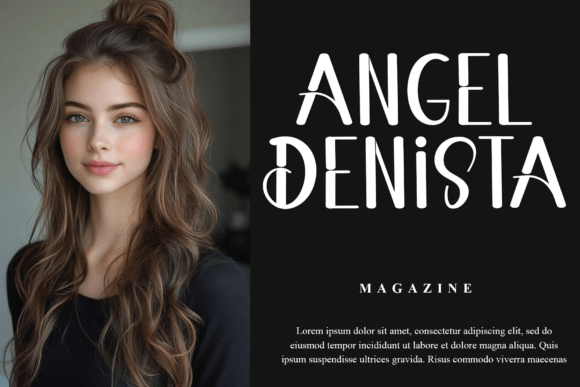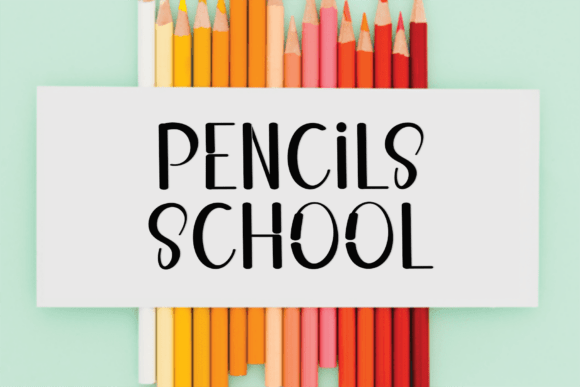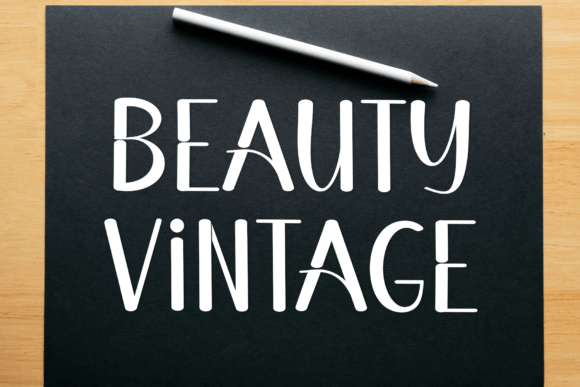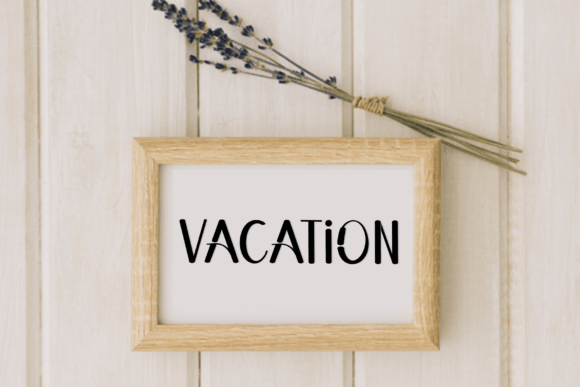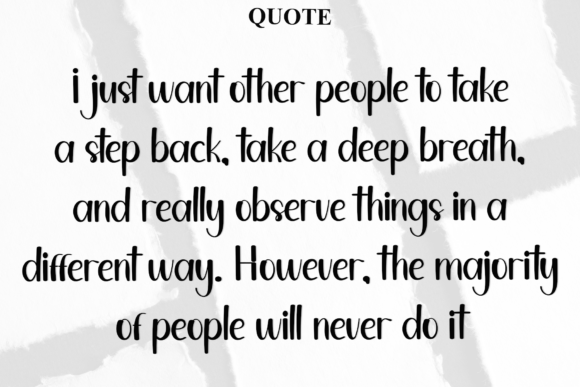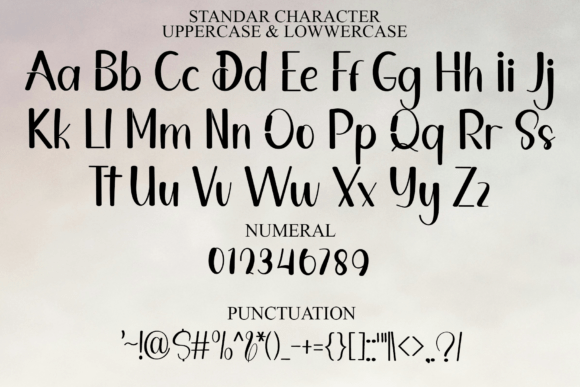
Introducing Brother Basketball Font: The Perfect Blend of Casual and Creative
Are you tired of using the same old fonts for your personal projects, invitations, and social media graphics? Look no further than Brother Basketball Font, a casual and creative font that exudes warmth and friendliness. Its round, playful strokes create a relaxed and approachable feel, perfect for designers and crafters looking to add a unique touch to their designs.
The Charm of Brother Basketball Font
Brother Basketball Font boasts a charming, hand-drawn aesthetic that sets it apart from other fonts. Its playful and casual nature makes it perfect for a wide range of design applications, from personal projects to commercial use. The font’s relaxed and approachable feel makes it ideal for designs that require a friendly and inviting tone.
Key Features of Brother Basketball Font
- Hand-Drawn Aesthetic: The font’s hand-drawn aesthetic adds a fun and unique touch to any design, making it perfect for designers and crafters looking to add a personal touch to their work.
- Casual and Creative: Brother Basketball Font is a casual and creative font that exudes warmth and friendliness, making it perfect for personal projects, invitations, and social media graphics.
Use Cases for Brother Basketball Font
Brother Basketball Font is perfect for a wide range of design applications, including:
- Personal Projects: Use Brother Basketball Font to add a personal touch to your personal projects, such as photo albums, scrapbooking, and crafting.
- Invitations: Create beautiful and unique invitations for special occasions, such as birthdays, weddings, and baby showers.
- Social Media Graphics: Use Brother Basketball Font to create engaging and eye-catching social media graphics, such as Facebook posts, Instagram stories, and Twitter headers.
- Commercial Use: Brother Basketball Font is also perfect for commercial use, such as branding, packaging, and advertising.
Tips for Using Brother Basketball Font
Here are some tips for using Brother Basketball Font effectively:
- Pair with Other Fonts: Pair Brother Basketball Font with other fonts to create a unique and interesting contrast.
- Use for Headings and Titles: Use Brother Basketball Font for headings and titles to add a touch of personality to your design.
Brother Basketball Font is a casual and creative font that exudes warmth and friendliness. Its round, playful strokes create a relaxed and approachable feel, perfect for personal projects, invitations, and social media graphics. With its charming, hand-drawn aesthetic and standard PUA Encoded glyphs, Brother Basketball Font is perfect for designers and crafters looking to add a unique touch to their designs.